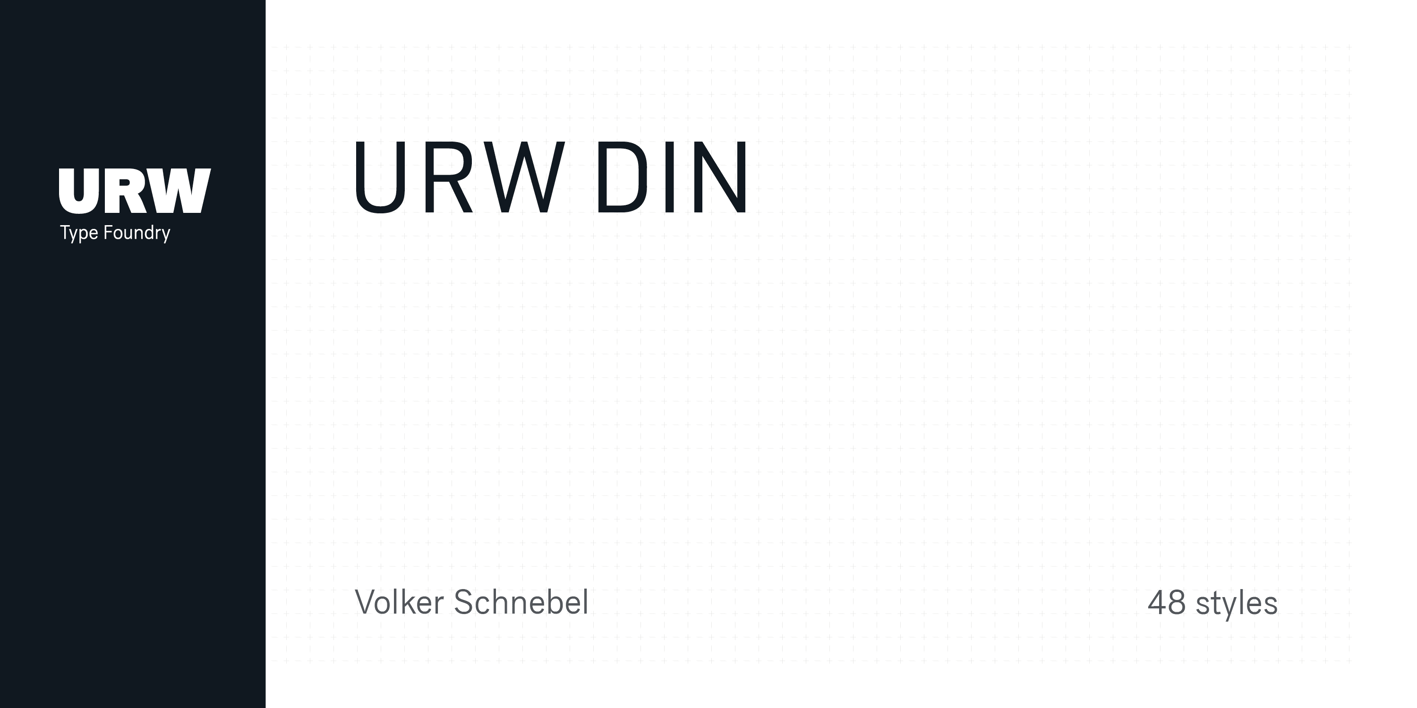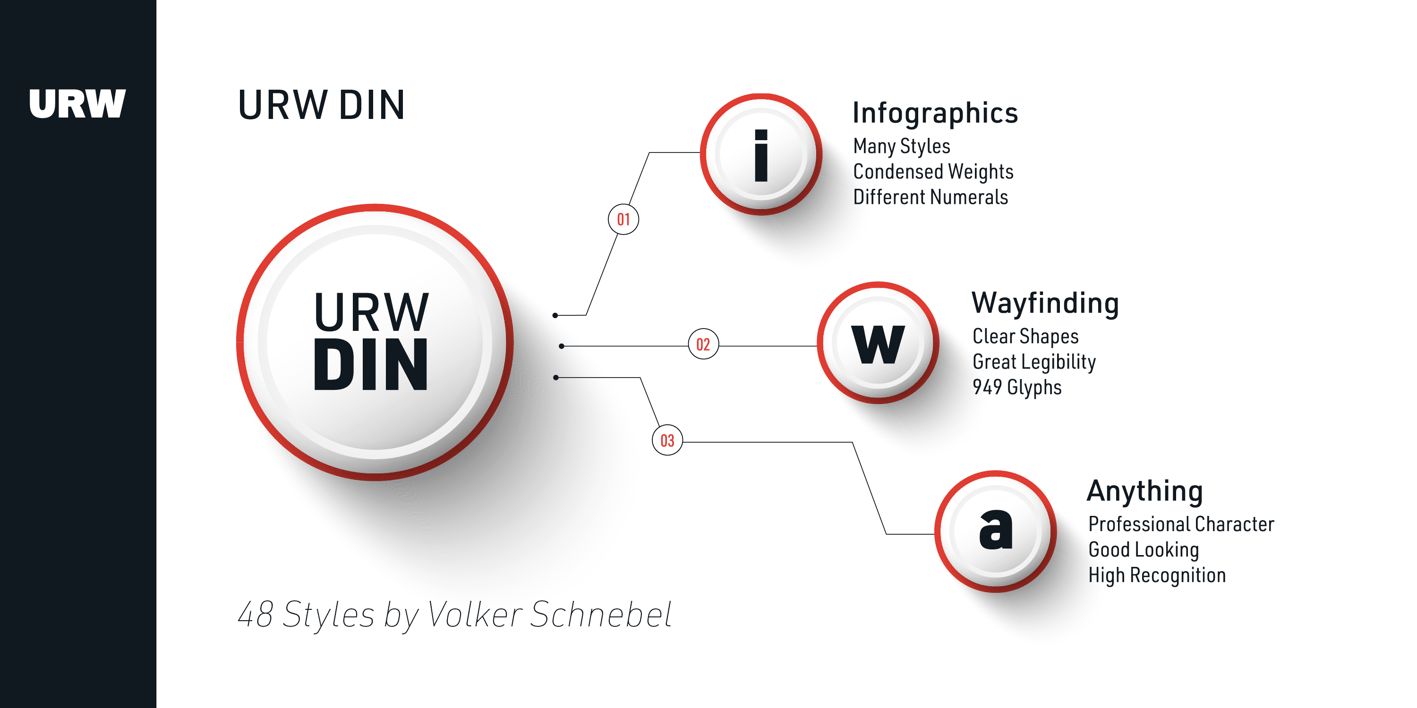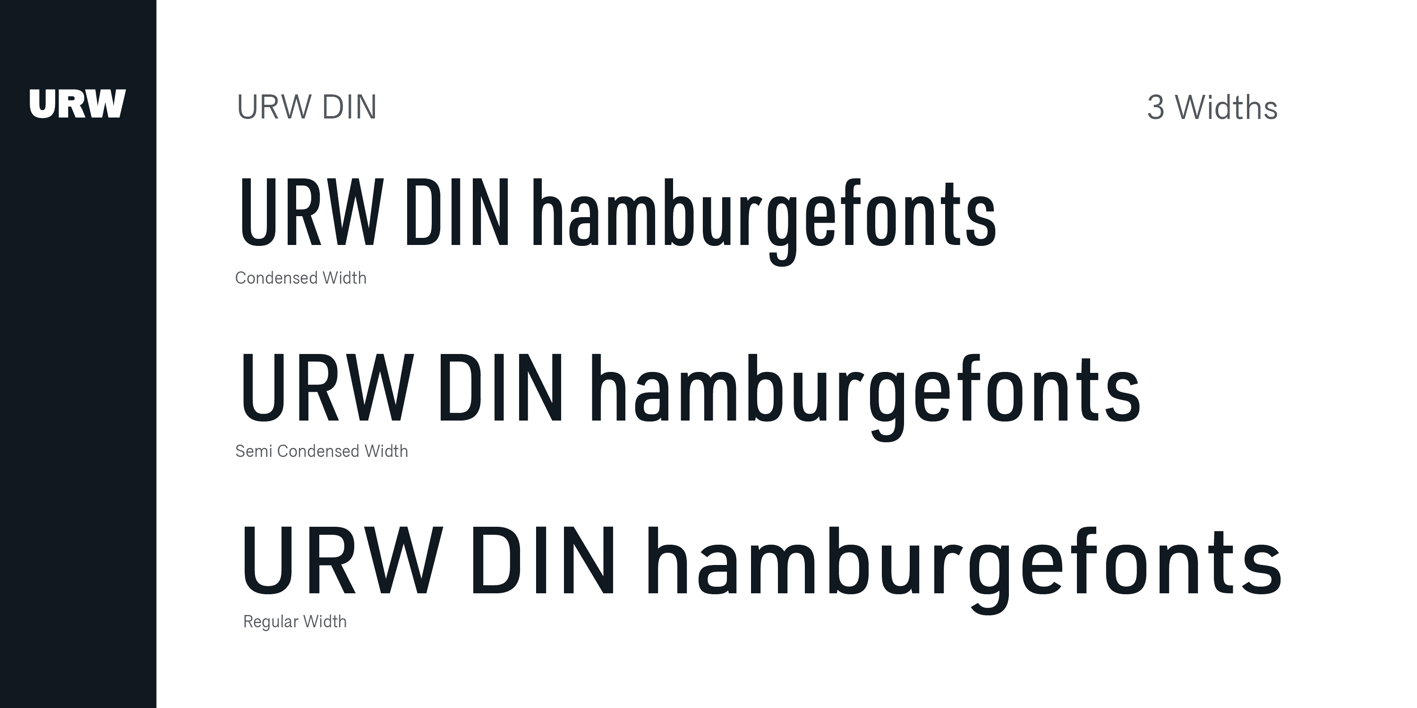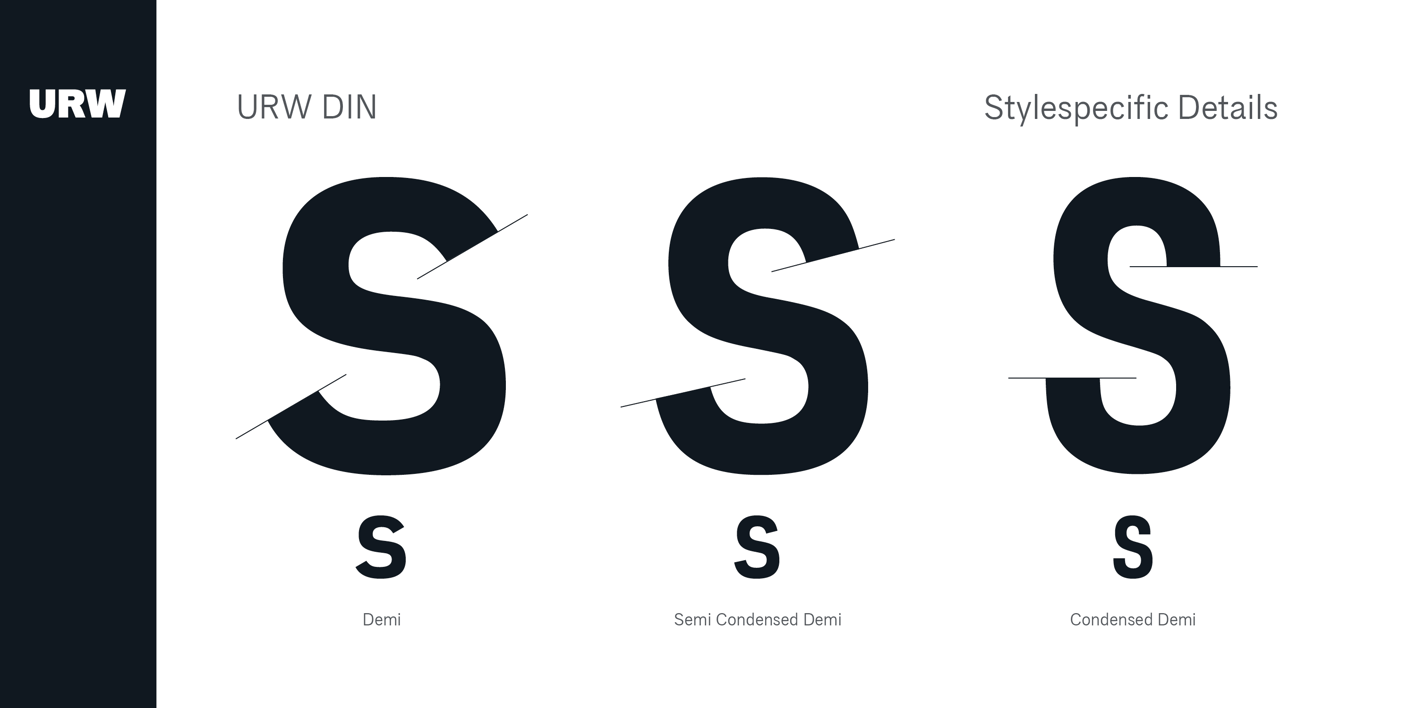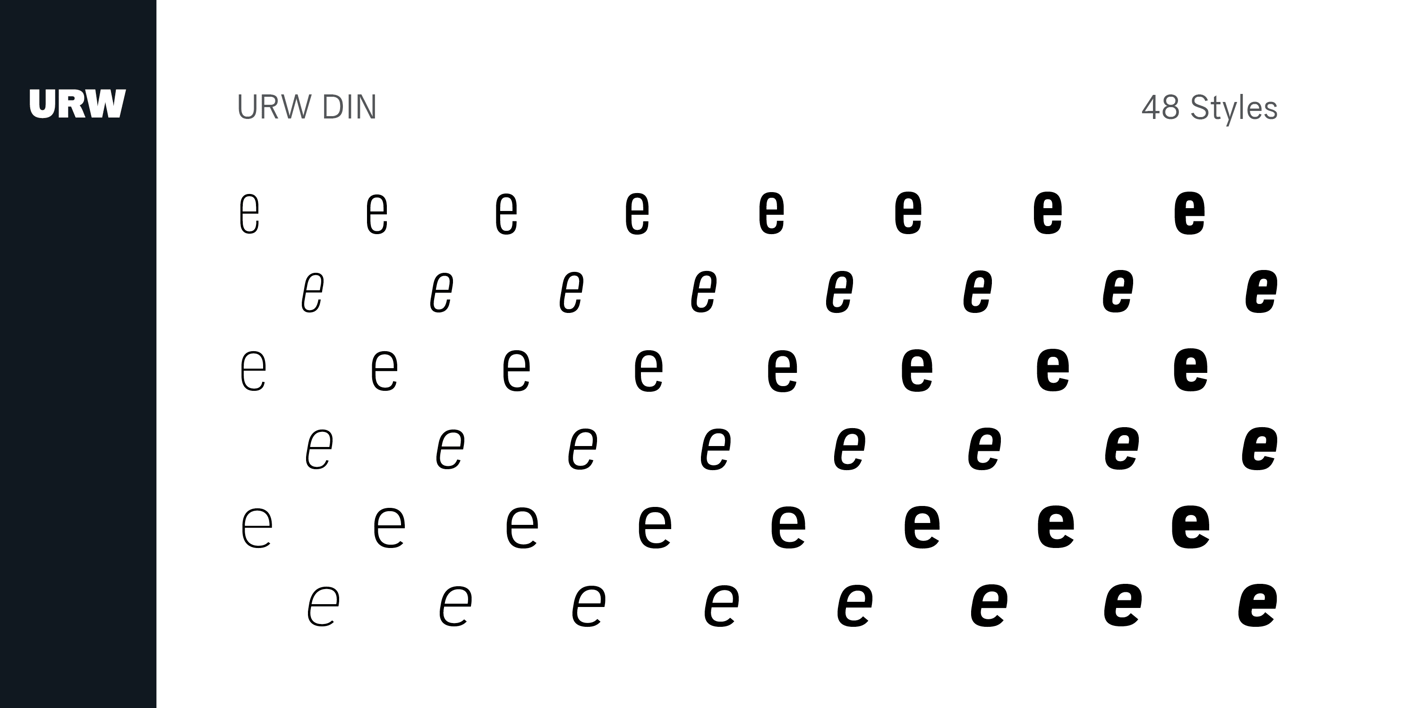
URW DIN Font
URW DIN Font is perfect for industrial design presentations, technical documentation, engineering reports, German engineering companies, automotive industry materials, precision manufacturing branding, scientific instrument labeling, standardized signage systems, architectural blueprints, quality control documentation, transportation graphics, and systematic projects that require precise, standardized typography with German engineering excellence and industrial authority.
What makes URW DIN Font so exciting is its legendary precision and industrial authority that embodies the world-renowned standards of German engineering and systematic design excellence. This typeface features clean, geometric letterforms based on the Deutsche Industrie Norm (DIN) standards with mathematical precision and functional clarity that creates immediate credibility and professional trust. The font's systematic character and engineering heritage make it perfect for technical organizations and precision-focused projects that want to communicate reliability, accuracy, and the kind of meticulous quality standards that define German industrial excellence.
URW DIN Font typically comes in multiple weights and styles including Light, Regular, Medium, Bold, and Black variations, along with condensed widths. Many versions also include technical symbols, engineering ornaments, and standardized characters that enhance the font's industrial functionality and provide designers with comprehensive tools for creating systematic, engineering-grade typography compositions that meet professional standards.
Achieve engineering precision with the systematic excellence of URW DIN Font Free Download. This authoritative typeface brings together German engineering standards with contemporary design functionality, making it an indispensable tool for technical professionals and precision-focused organizations that need to create memorable, standards-compliant communications that resonate with audiences demanding accuracy and reliability. The font's systematic character ensures your technical communications will convey engineering authority and industrial credibility.
Whether you're designing technical documentation, industrial branding, or engineering presentations, URW DIN Font delivers unmatched precision and systematic reliability that connects with audiences who value German engineering standards and technical excellence. Its clean, standardized appearance works exceptionally well in both technical applications and contemporary design contexts, maintaining its industrial authority across diverse professional environments.
The precisely engineered letterforms of URW DIN Font showcase the ultimate expression of standardized typography and German engineering principles. Each character has been crafted according to DIN specifications to ensure optimal legibility and systematic consistency, making it particularly valuable for technical communications where typography must meet exacting standards for clarity, precision, and professional reliability.